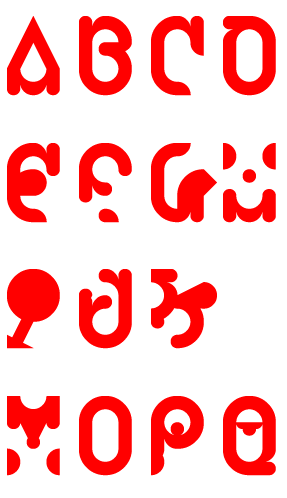
FF4 Circulation
by Christian Munk (CMunk)
Forgotten Fonts 4 Circulation // I'm looking through my font library at my many Forgotten Fonts to see how many should have been released.
OH!
There's some amazing thinking behind this one.
I'm loving the CMunk flood.
Extremely creative! 200/10!!
@CMunk : Hi, just to tell you "Circulation" inspired me a brand new style. I only have some letters for now, but it's encouraging. Here's a sample with what i get untill now.
@CMunk : Hi Friend, just finished the font documented with the rough above. Here's the link : New Forge . Hope you'll like. Thanks for great inspiration. Of course, some glyphs have been redesigned since the early rough above.
The B and D look like the Discord Nitro icon and the Blender.io logo.